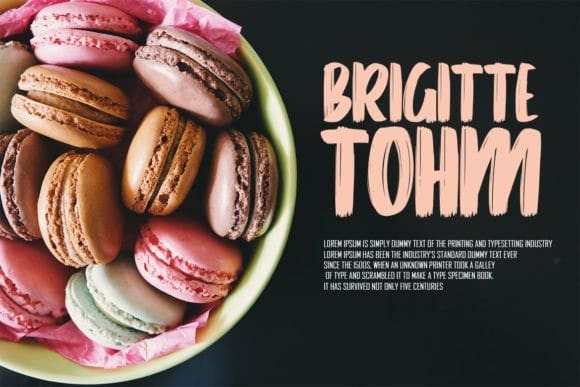
Raqgar Brush Font
Raqgar Brush Font is a rough handwritten brush font. Written in quick motion using a brush pen, it’s a bit dry and looks realistic. It is suitable for magazines, logos, product packaging, headlines, posters, merchandise, social media, or greeting cards.